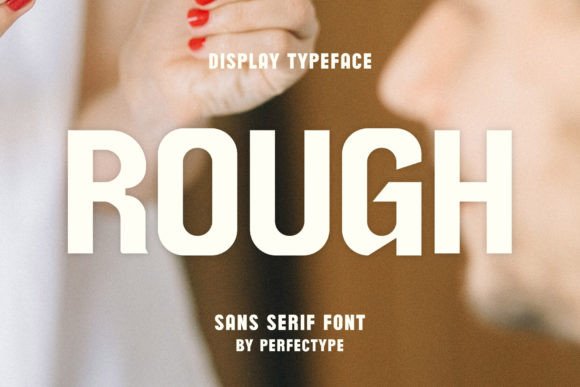
Unleash the Timeless Elegance of Rough Font: The Ultimate Sans Serif for Vintage Charm
In a world saturated with monotonous fonts, Rough Font emerges as a breath of fresh air, a font family that exudes a timeless vintage charm like no other. Its modern and unique shape, coupled with its natural writing style, invites you to embark on a journey of typographic artistry.
With Rough Font, you hold the key to unlocking a treasure trove of breathtaking designs. Whether you're a seasoned branding expert, an aspiring web designer, or simply a creative soul seeking expression, Rough Font is your perfect companion. Its versatility knows no bounds, effortlessly adapting to logos, wedding invitations, romantic cards, labels, packaging, and even the delicate art of calligraphy.
Imagine your brand's identity adorned with the sophistication of Rough Font, its every letter evoking a sense of heritage and nostalgia. Picture wedding invitations that capture the essence of love and romance, their words dancing gracefully across the page in the embrace of Rough Font's timeless allure. Unleash your creativity and witness the transformation of ordinary words into captivating works of art.